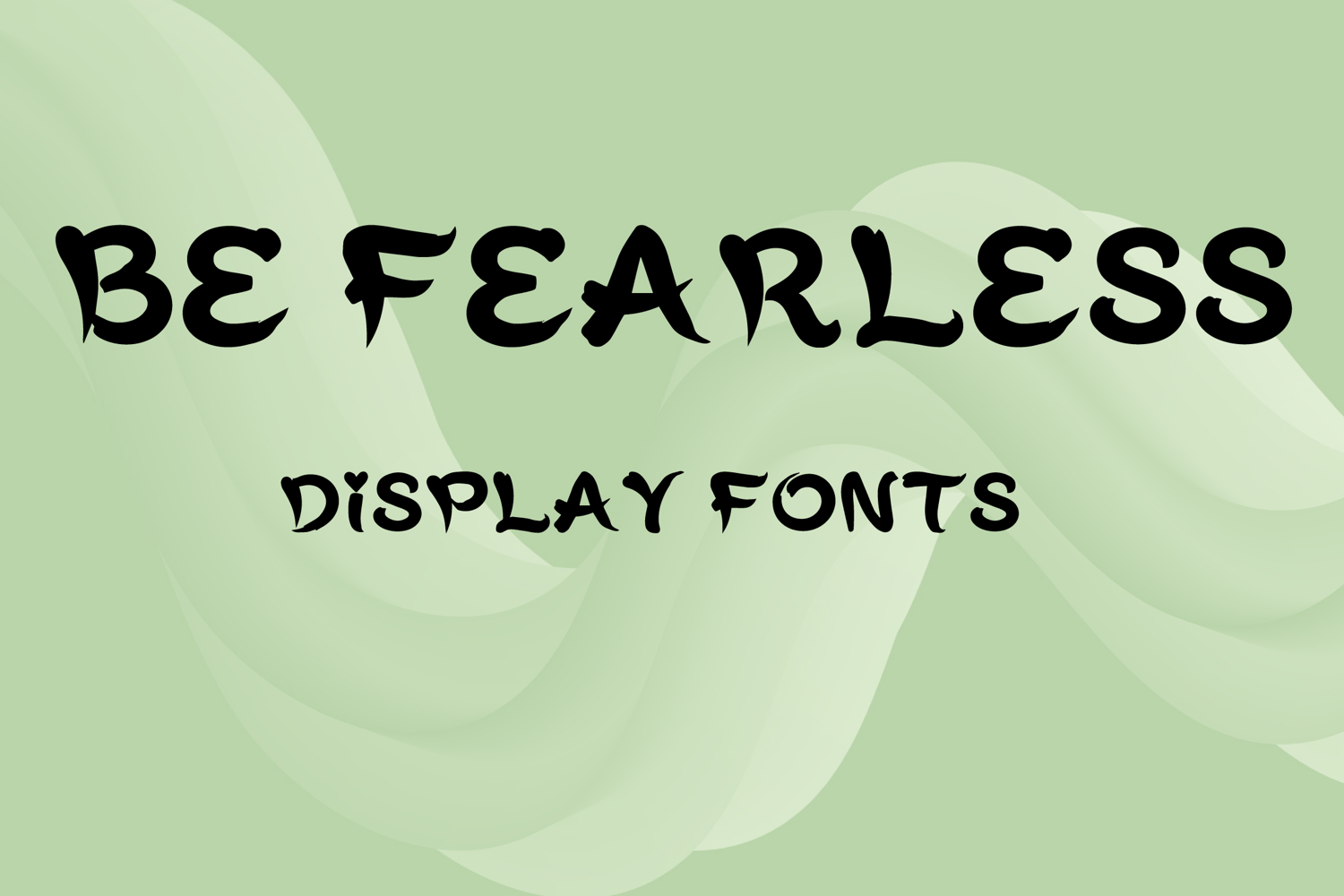
BE FEARLESS
BE FEARLESS is a bold display font with a rough handcrafted style and edgy artistic character. Its uppercase letterforms feature textured strokes, sharp brush-like details, and slightly irregular shapes that create a strong, energetic, and eye-catching look. Designed with uppercase letters A–Z and numbers 0–9, BE FEARLESS is perfect for branding, posters, packaging, book covers, logos, and creative projects that need a powerful and memorable statement.